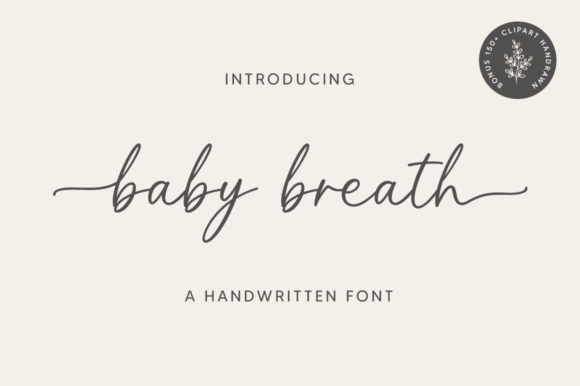
Introducing Baby Breath Font, the ultimate script font designed for flower shops and creative enthusiasts! Crafted by the talented team at Graphix Line Studio, this font is the perfect blend of elegance and grace, guaranteed to leave a lasting impression on your designs.
With its thin lettering and ravishing style, Baby Breath Font exudes a captivating charm that will effortlessly elevate your projects. Whether you're creating stunning wedding invitations, delicate logos, or enchanting social media graphics, this font is your go-to choice for adding a touch of sophistication.
One of the standout features of Baby Breath Font is its PUA encoding, granting you easy access to a wide range of glyphs and swashes. Unlock a treasure trove of design possibilities as you effortlessly incorporate unique and eye-catching elements into your artwork. Let your creativity flow without any limitations!
Infuse your designs with the essence of nature and beauty. Baby Breath Font is your secret weapon for capturing the delicate and graceful aura of blooming flowers. Embrace the power of emotional connection as you evoke feelings of joy, love, and enchantment in your audience.
Why settle for ordinary when you can embrace extraordinary? Stand out from the crowd with Baby Breath Font, the font that breathes life into your designs. Its versatility knows no bounds, allowing you to create a wide range of visual masterpieces that will leave your audience mesmerized.